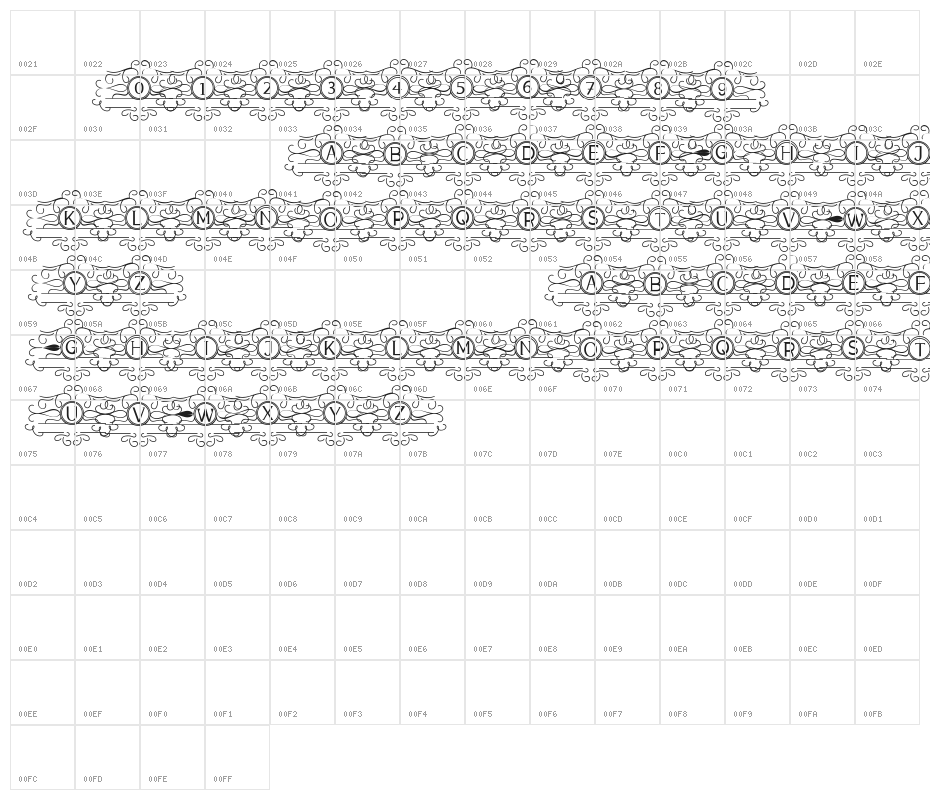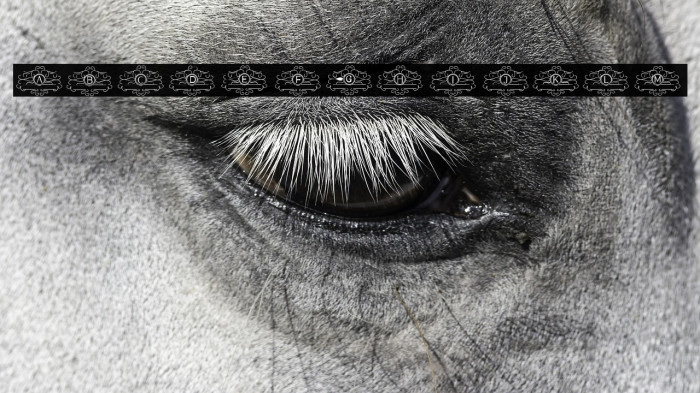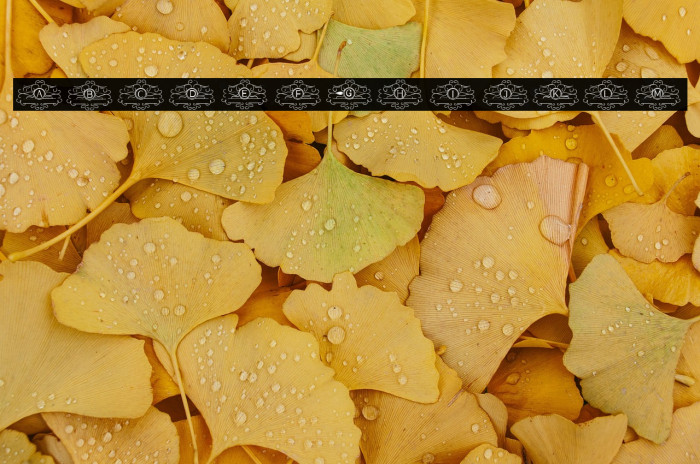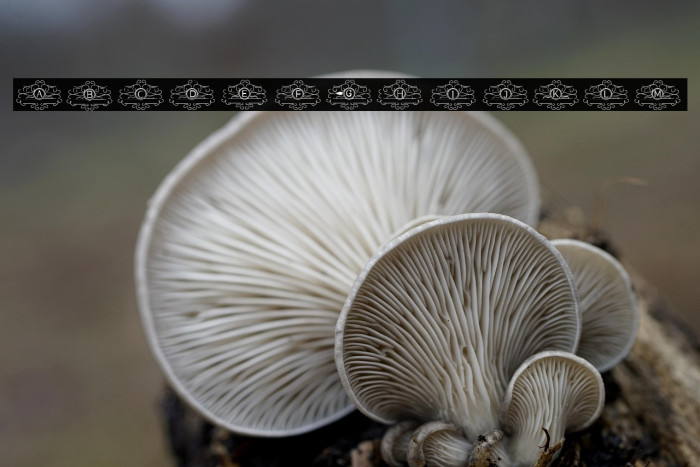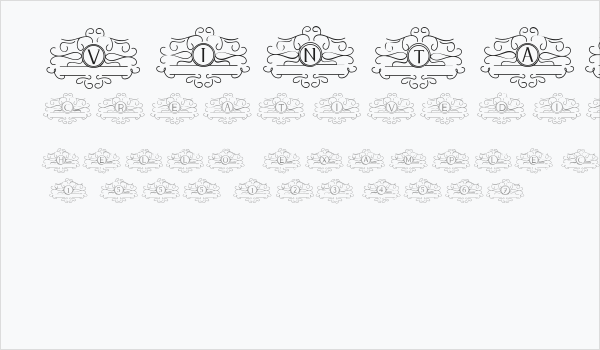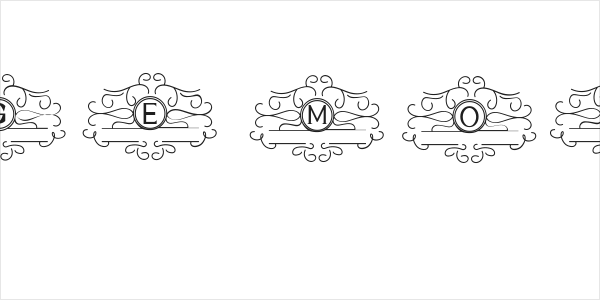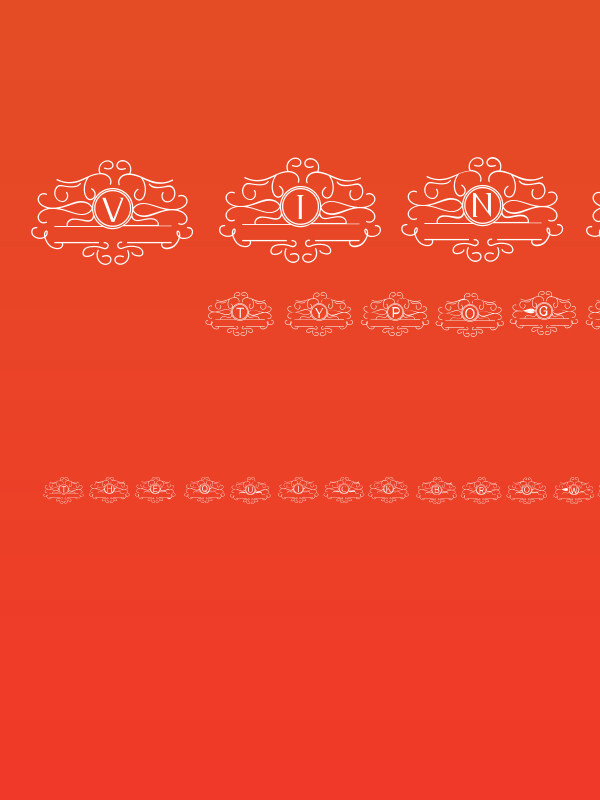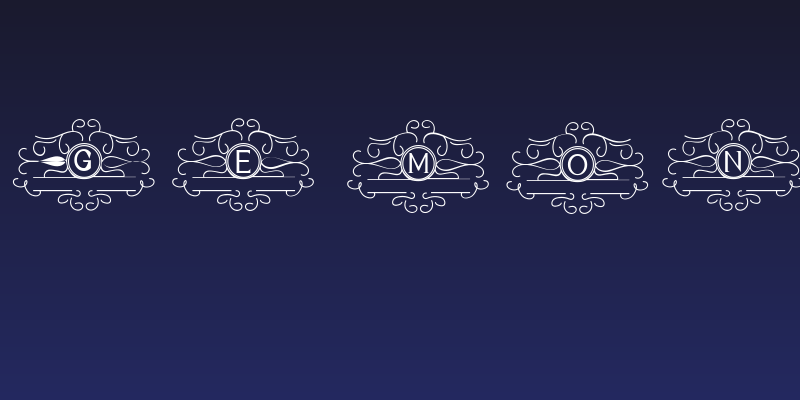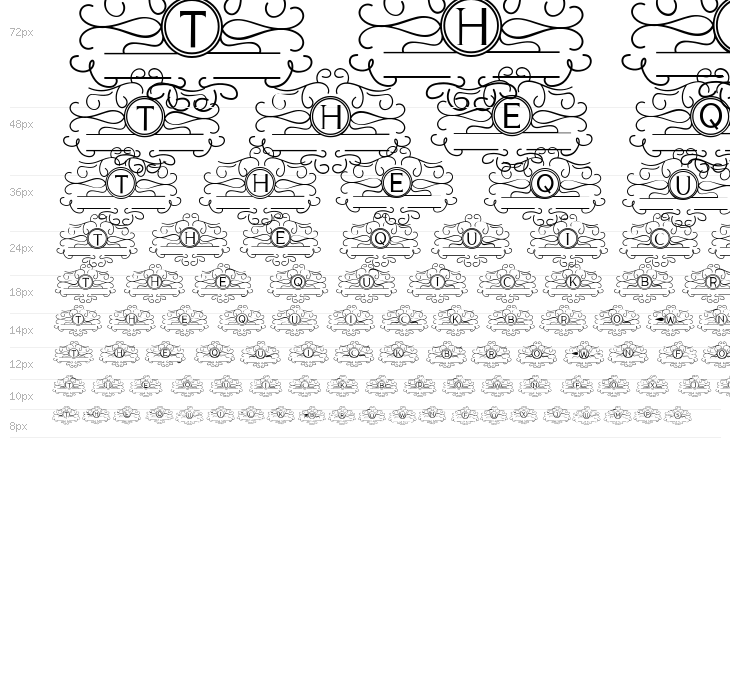
VINTAGE MONOGRAM Font
VINTAGE MONOGRAM Description
This font features an ornate and decorative style, reminiscent of vintage monograms. Each character is encased in an elaborate frame, adding a touch of elegance and sophistication. The intricate detailing around each letter and number gives it a regal and classic appearance, making it ideal for designs that require a luxurious and timeless feel. The characters are evenly spaced within their ornate borders, ensuring readability while maintaining their decorative charm. This font is perfect for projects that aim to evoke a sense of history and grandeur.
| Overall Style | Vintage |
| Use Case | Logos, Invitations, Decorative Monograms |
| Proposed Projects | Ideal for wedding invitations, luxury branding, vintage-themed events, and decorative monograms. |